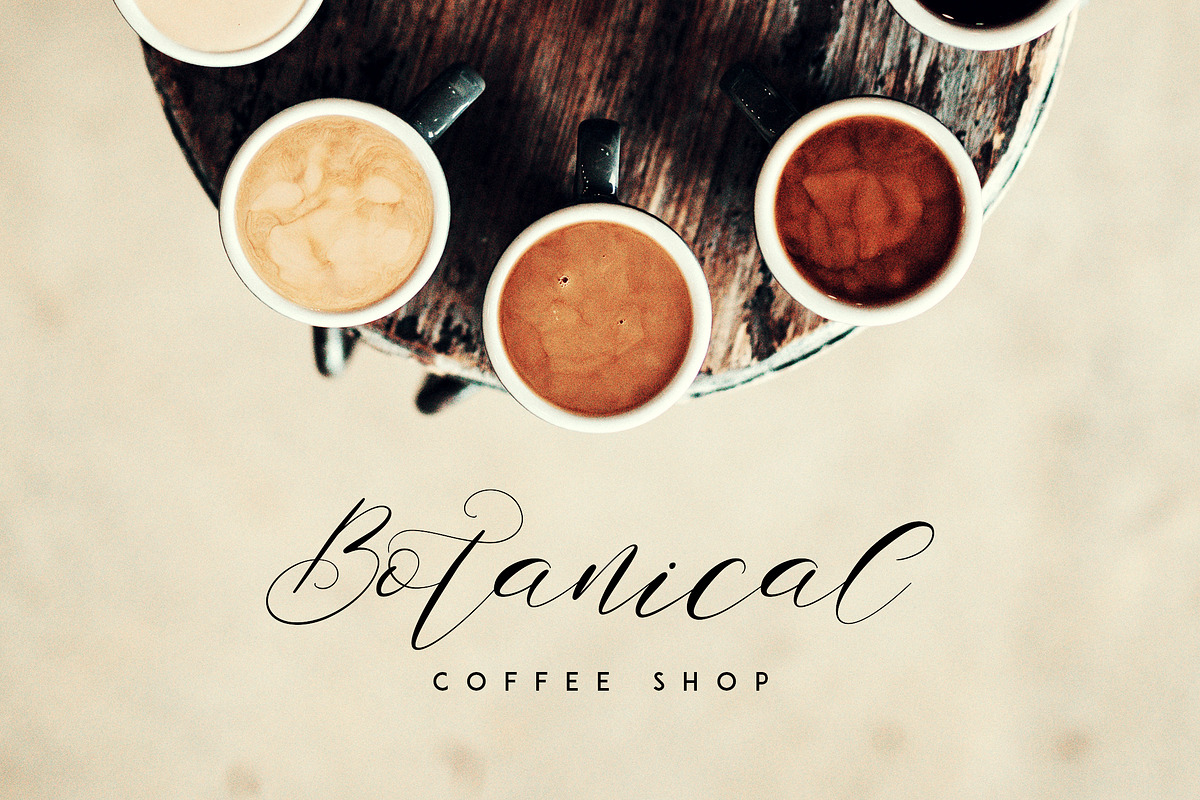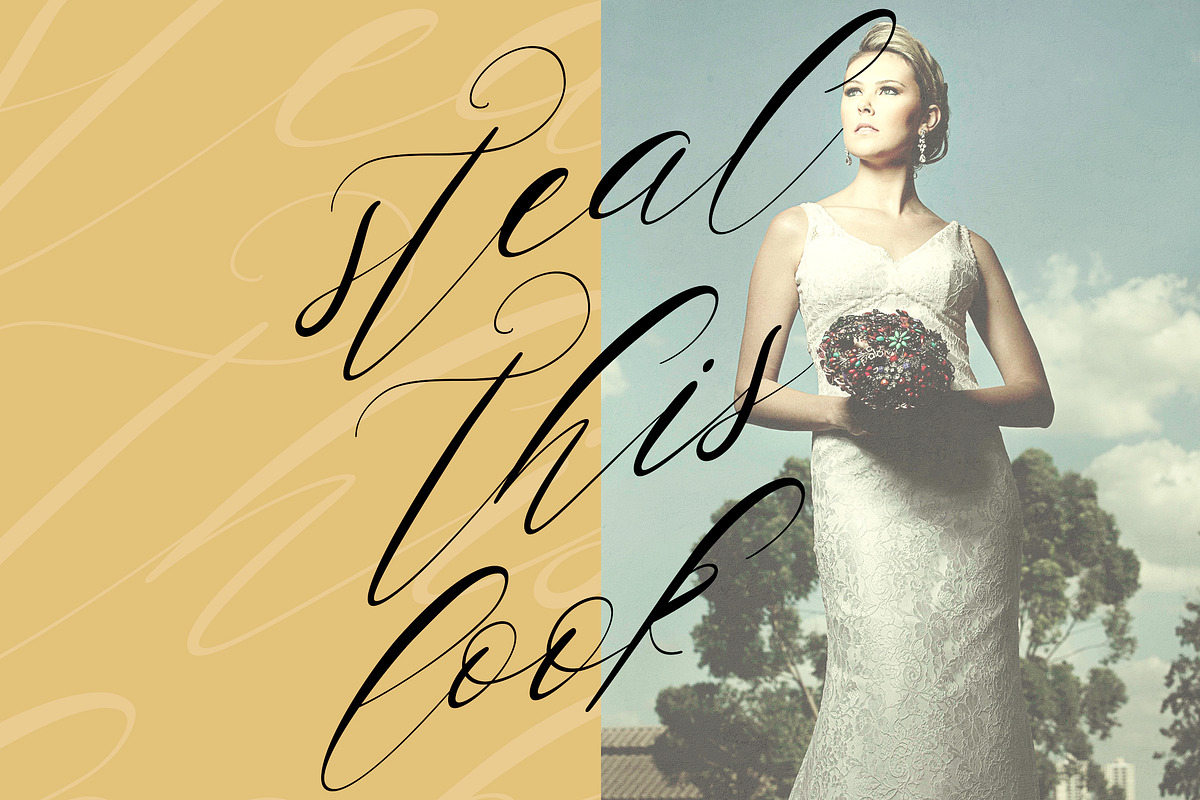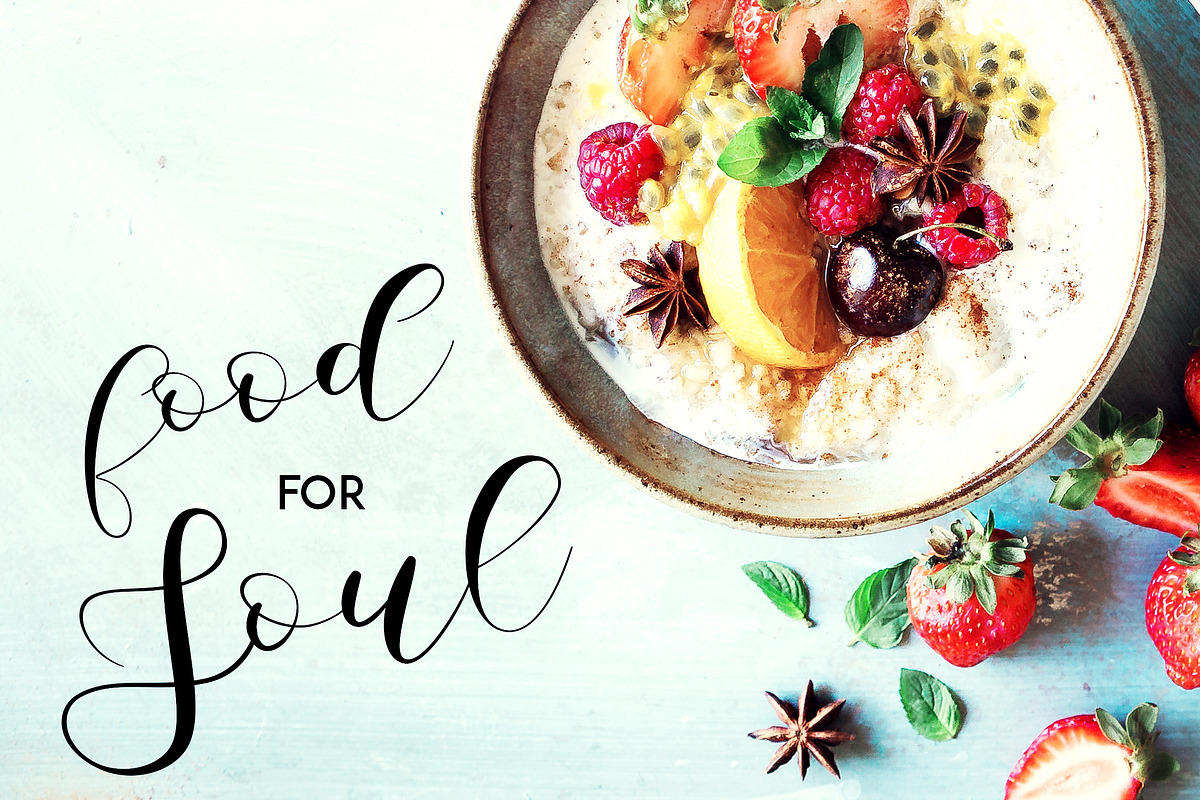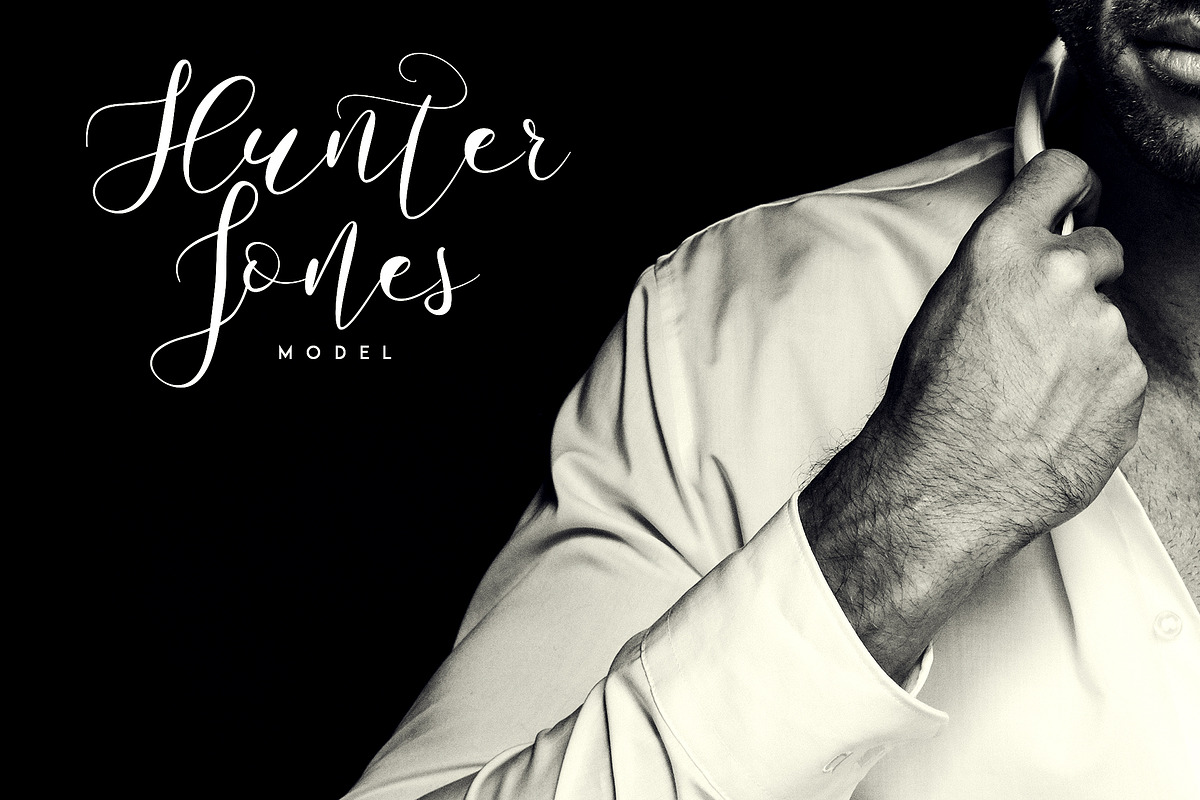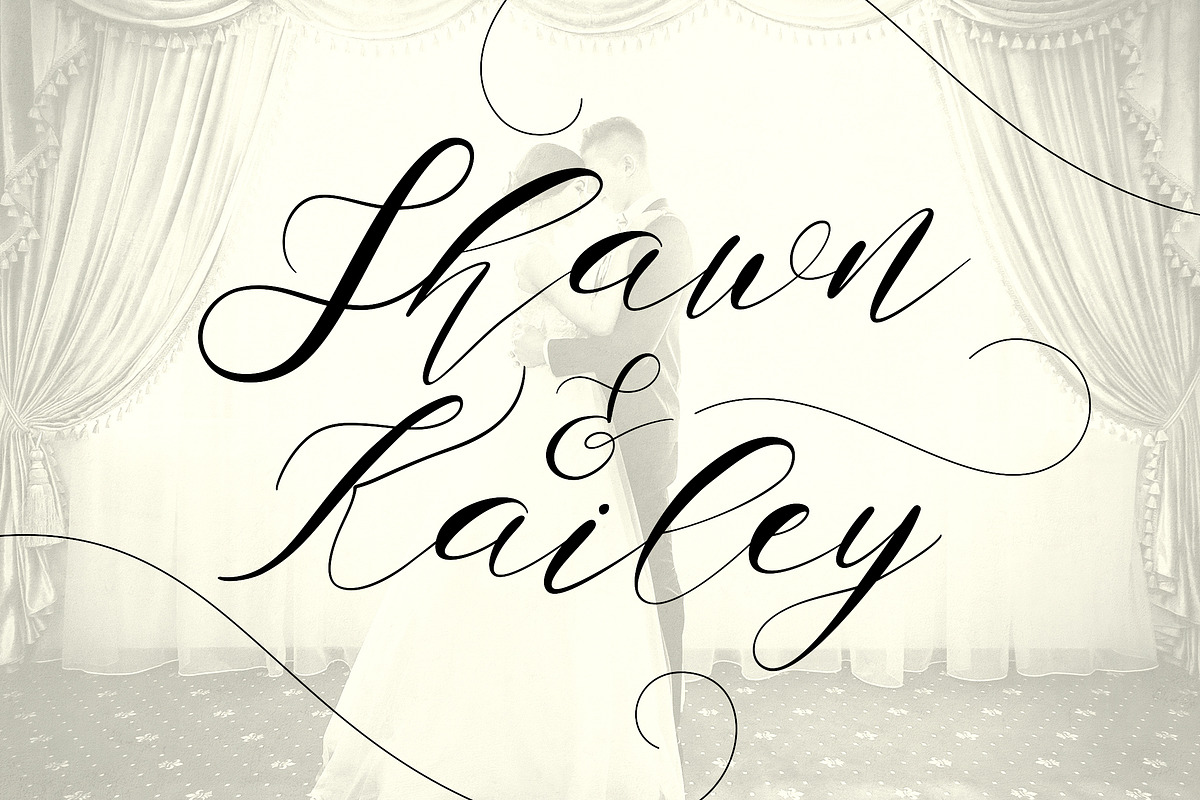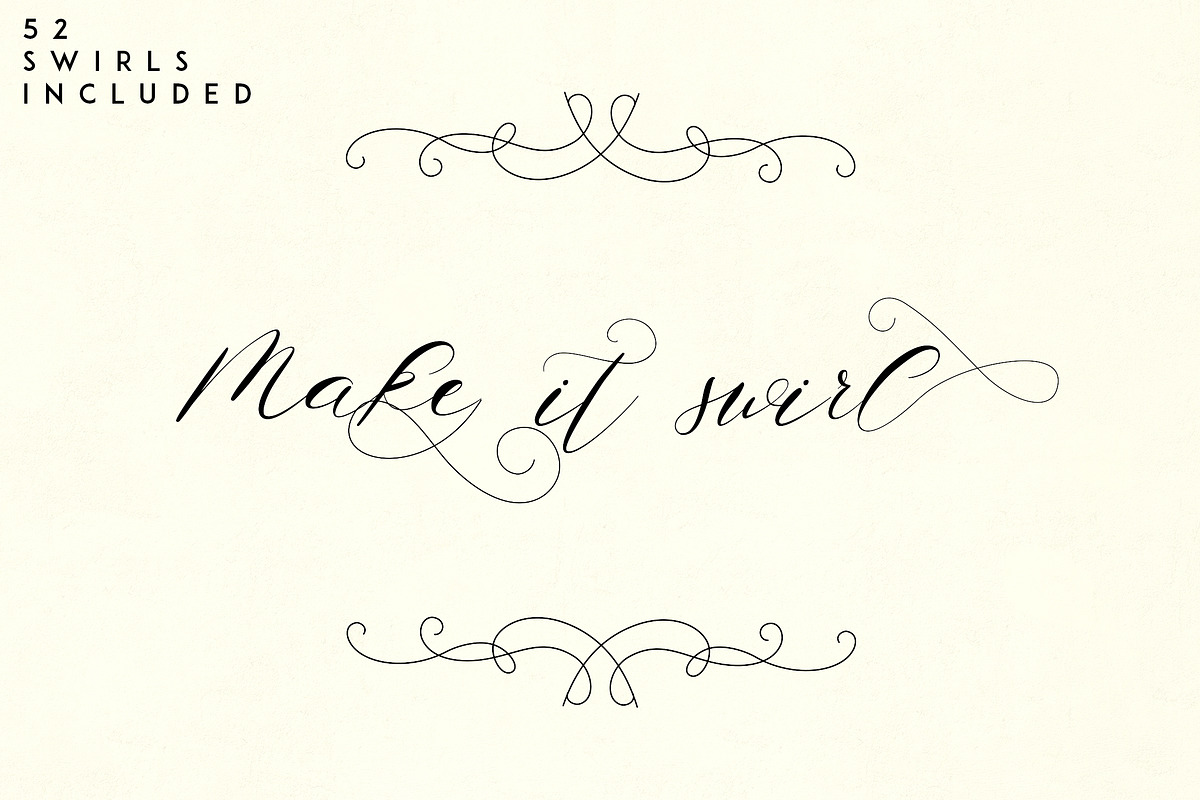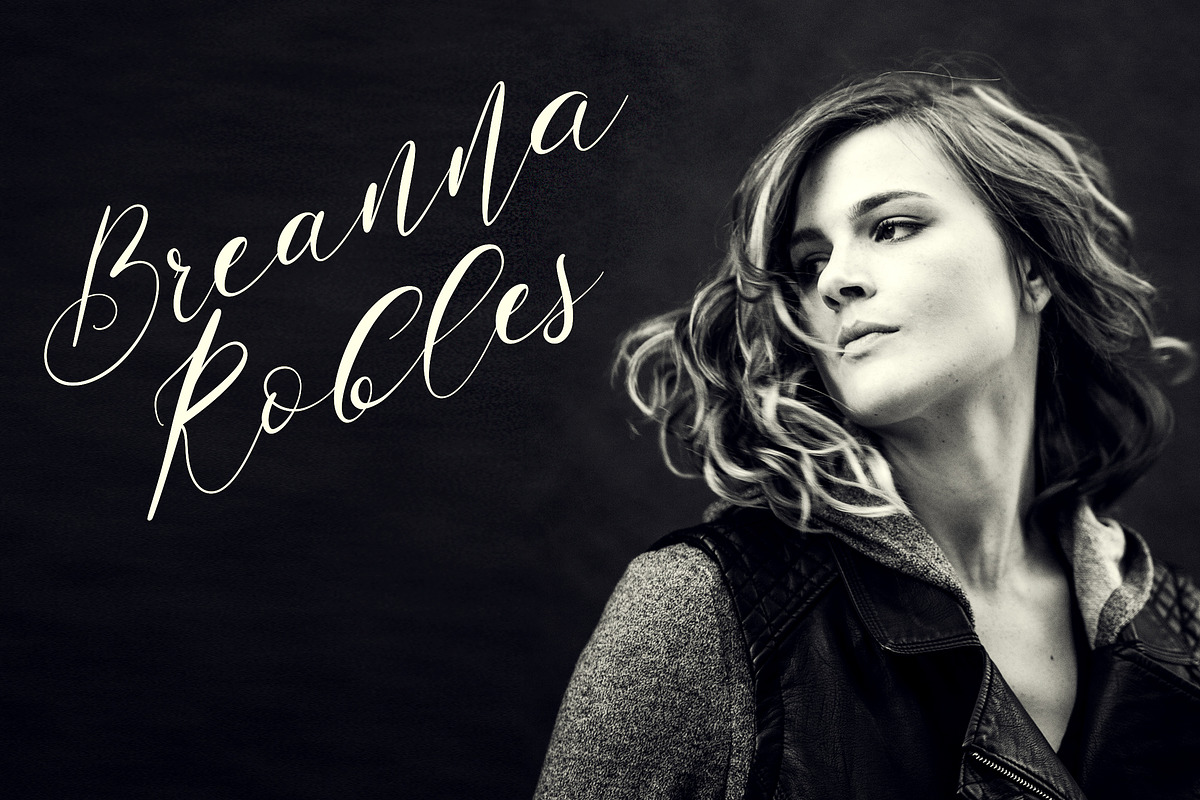
Zemarah script - 3 styles + Extras
Zemarah is not ordinary, elegant typeface with 3 styles, swirls and multilingual support. It's a very versatile font that works great in large and small sizes.
Zemarah is perfect for branding projects, home-ware designs, product packaging, magazine headers - or simply as a stylish text overlay to any background image.
- Zemarah Regular
- Zemarah Italic
- Zemarah Swirls
- Zemarah SuperItalic